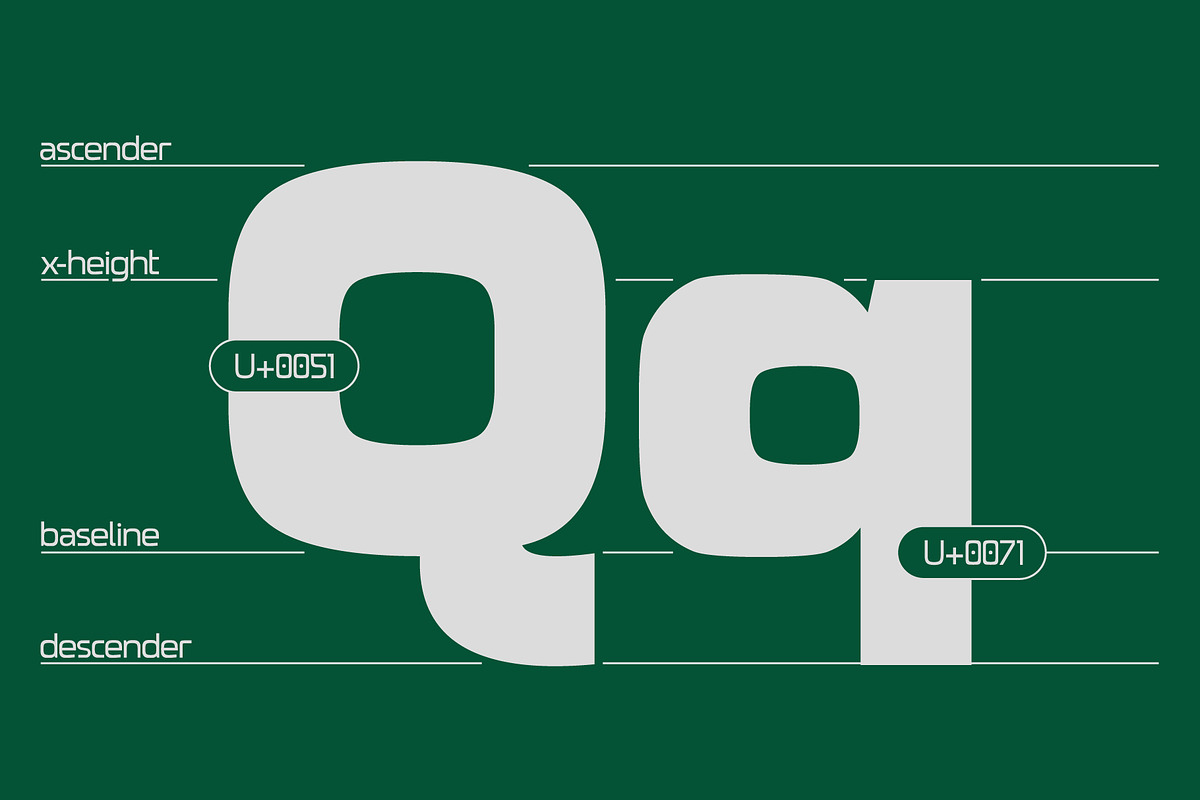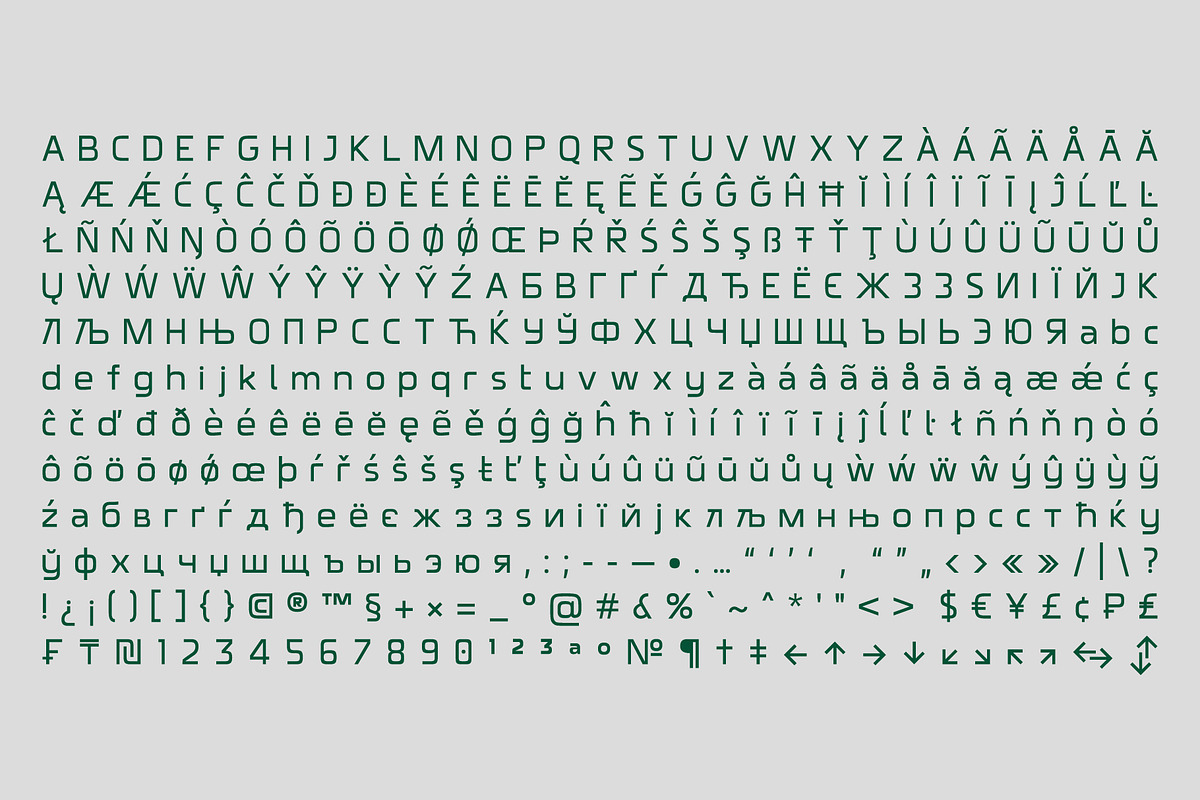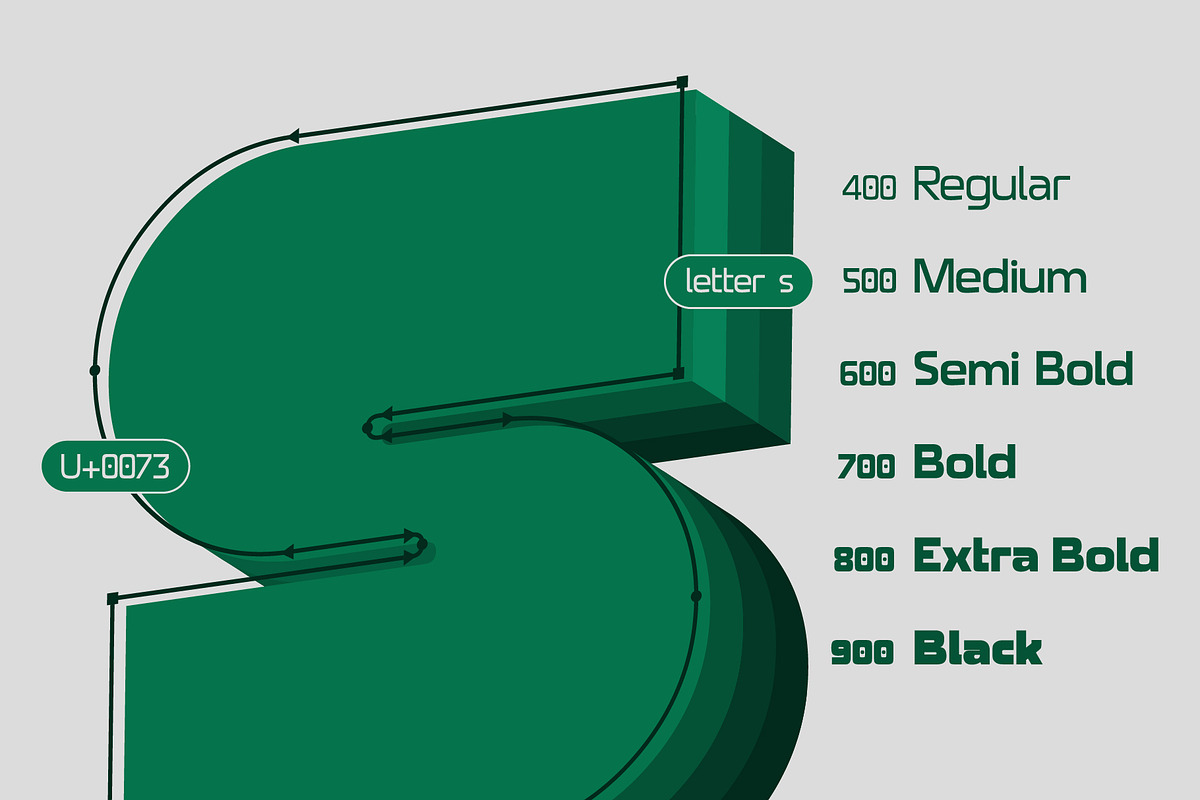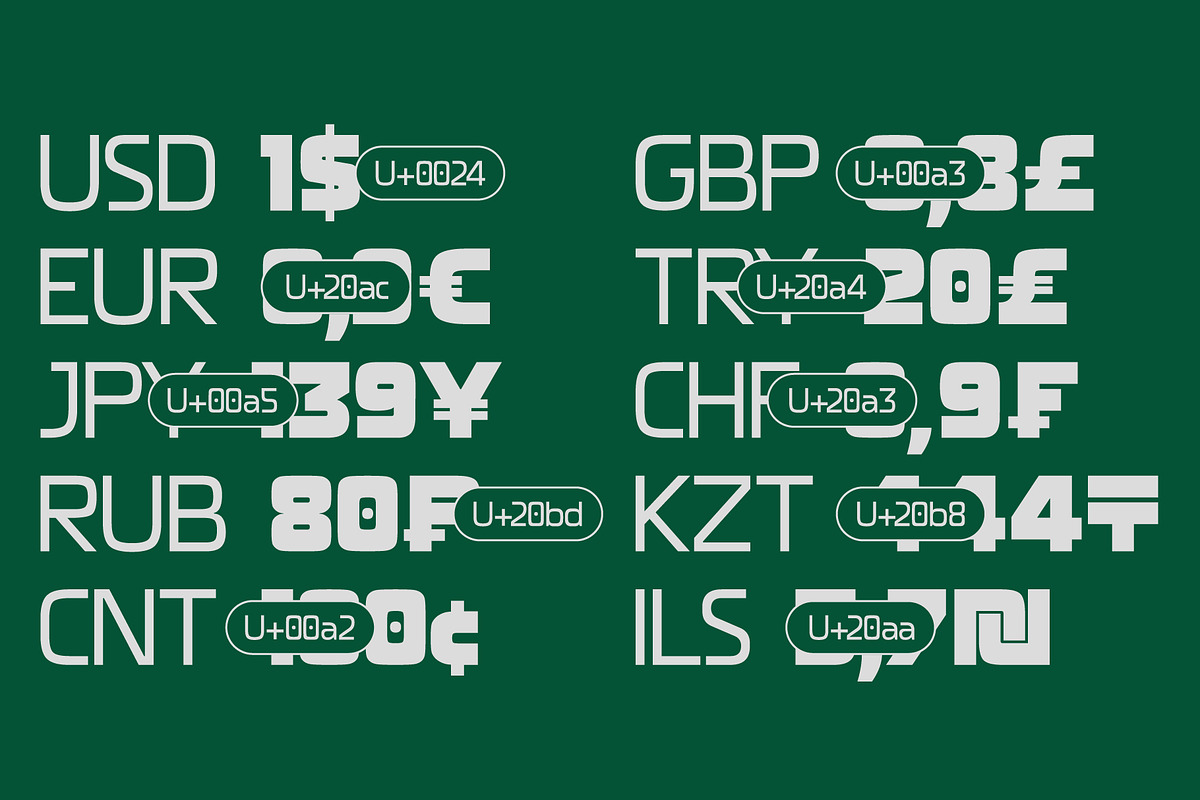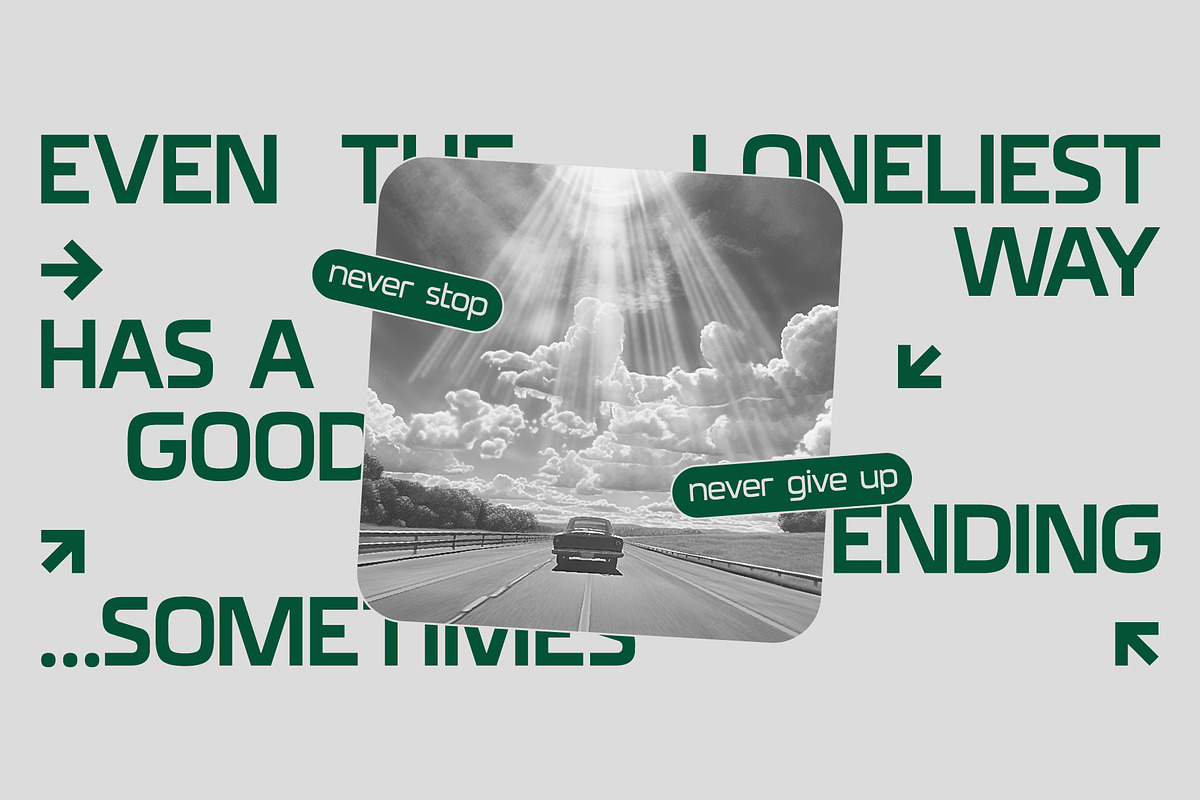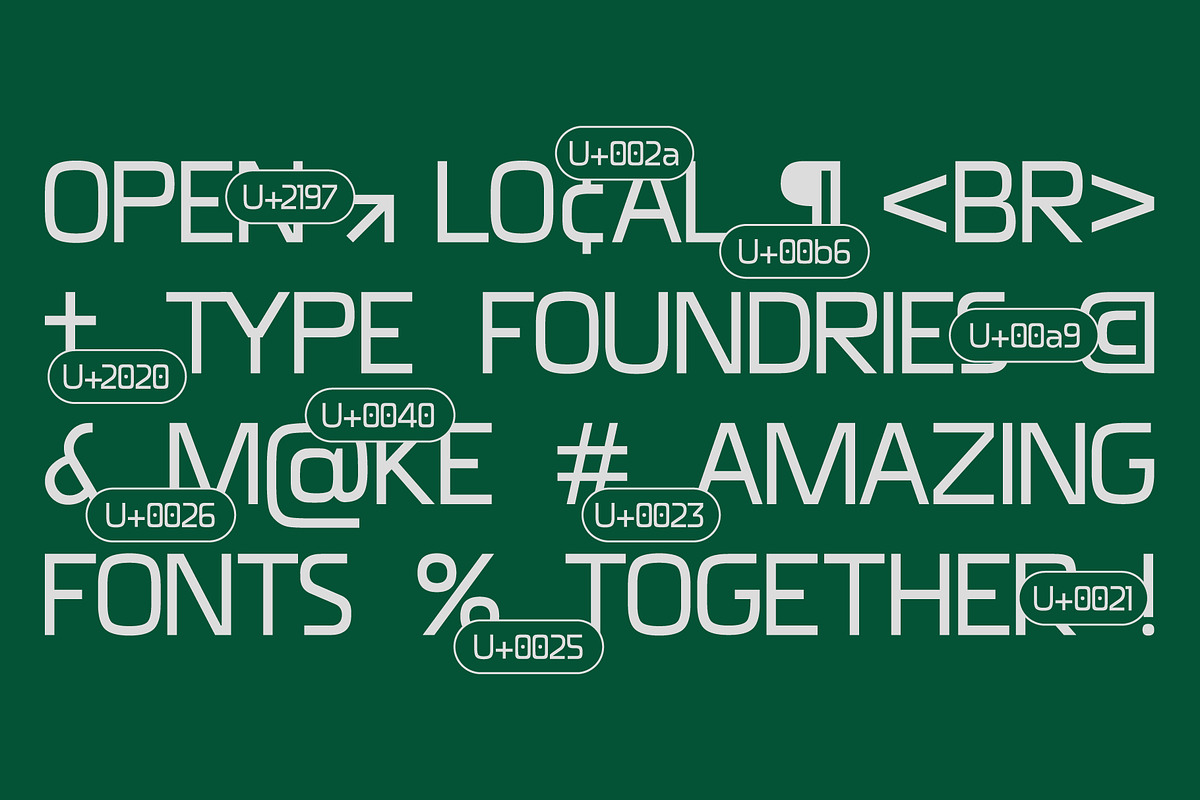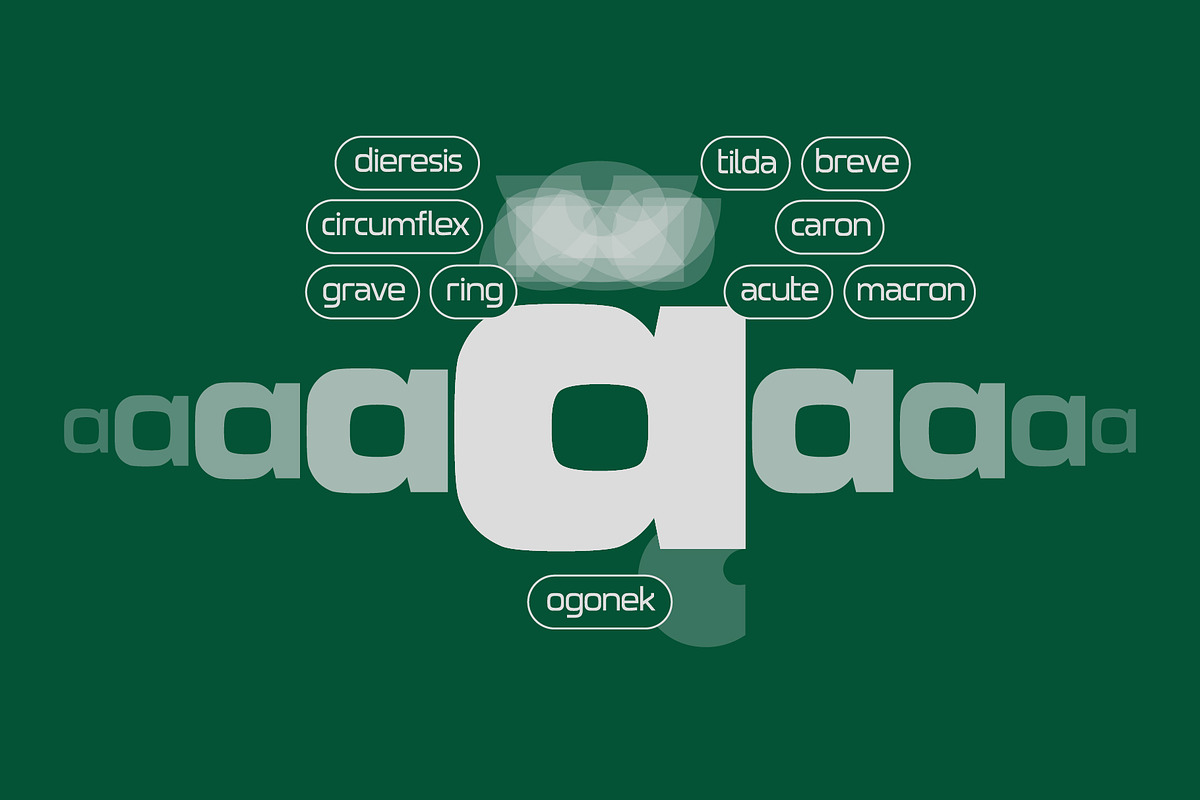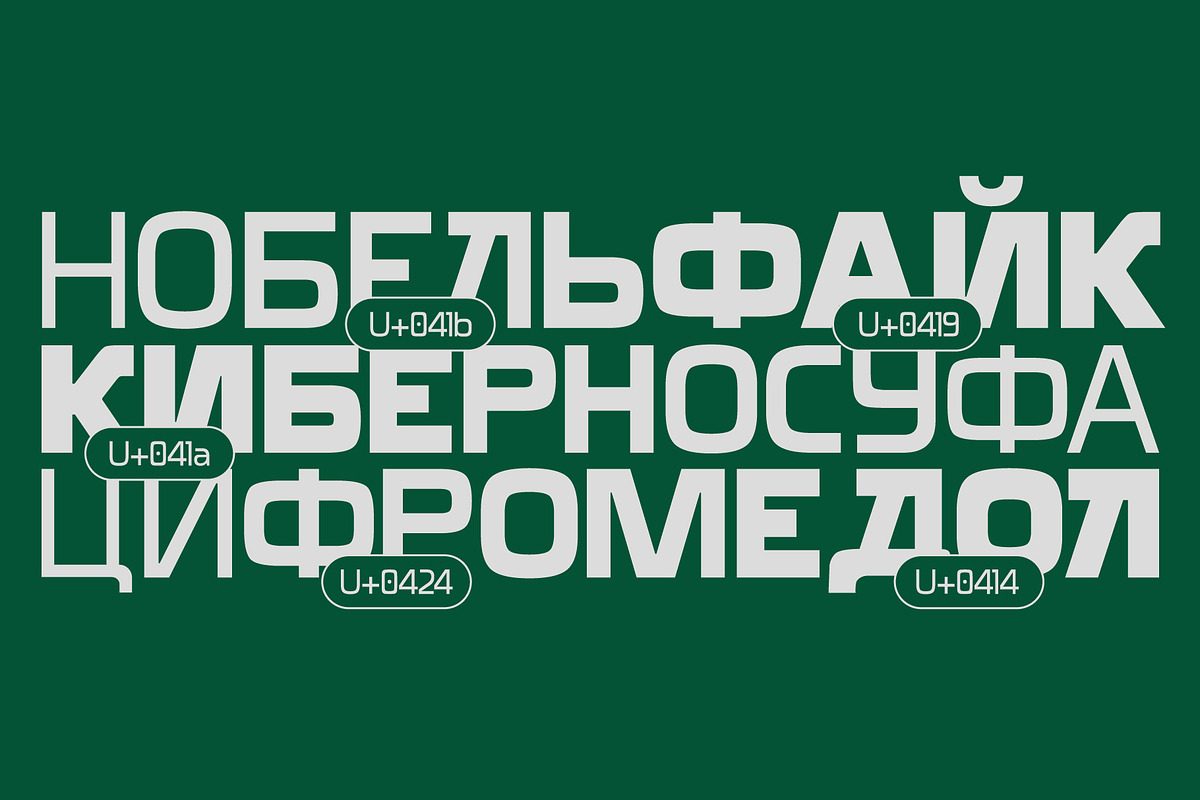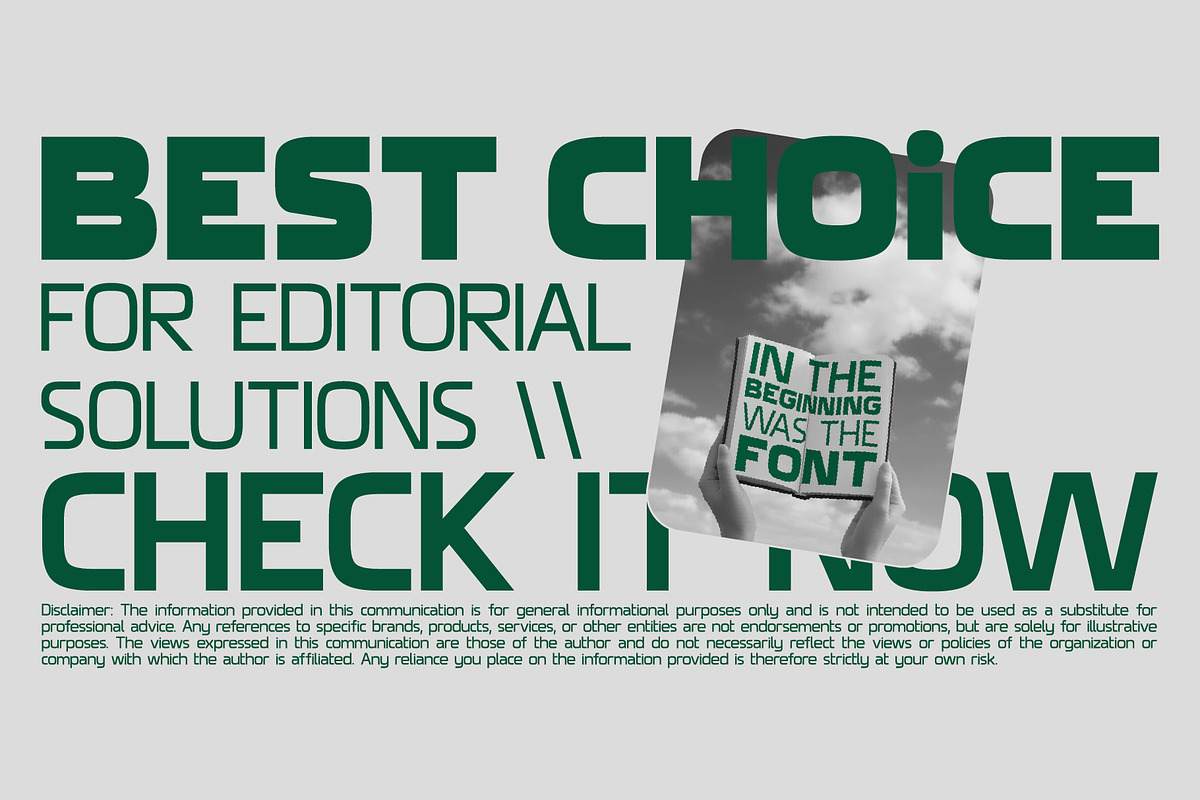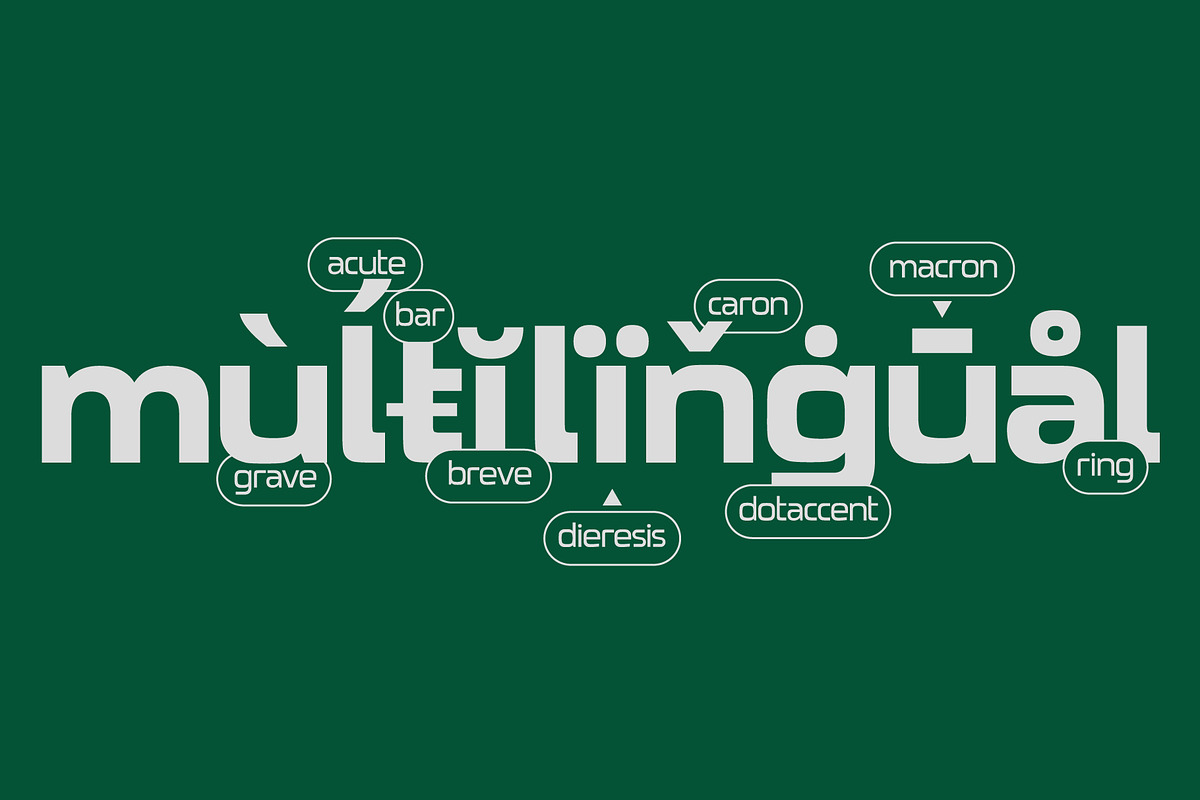
SK Clumster Sans — Modern Sans Serif
SK Clumster Sans is an extravagant multilingual geometric grotesque, developed under the impression of the unique and exciting aesthetics of font design. Its structure is enlivened by an innovative combination of geometric and organic shapes that transform the familiar letter pattern. SK Clumster Sans creates a unique visual impression through a combination of shapes, a large symbolic and weights set, in addition to lively and dynamic angles and lines. The font is suitable for creating original design works that reflect the creative potential of the author and his bold experiments in the field of design.